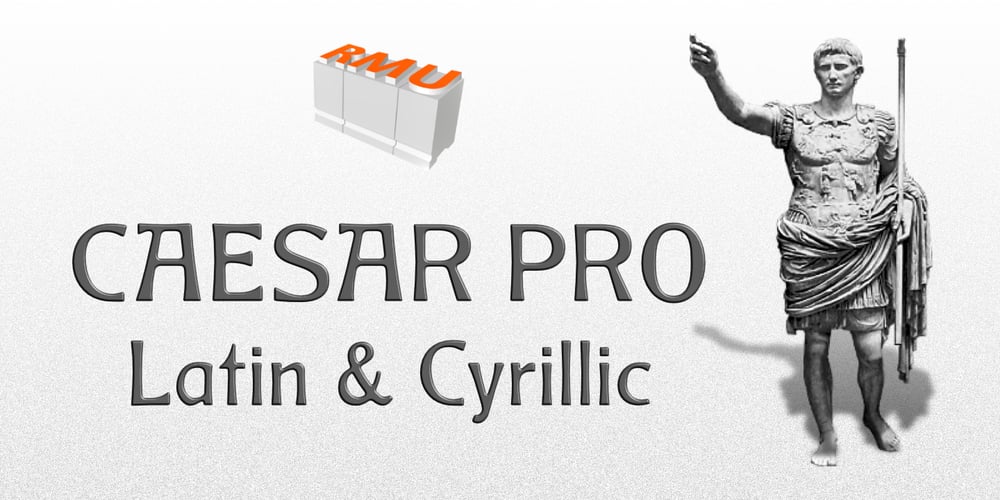
Caesar Pro Font Family was designed by Ralph M. Unger and published by RMU. Caesar Pro contains 1 styles and family package options. In 1913, Leipzig-based foundry C. F. Ruehl released a hot-metal font called Caesar-Schrift which was cut by the engraver and medalist Georg Schiller (1858-1937). This humanist sans combines successfully traditional classic forms with the flowing lines of the Art Nouveau period. Now revived as Caesar Pro, this font was carefully extended and made multilingual.